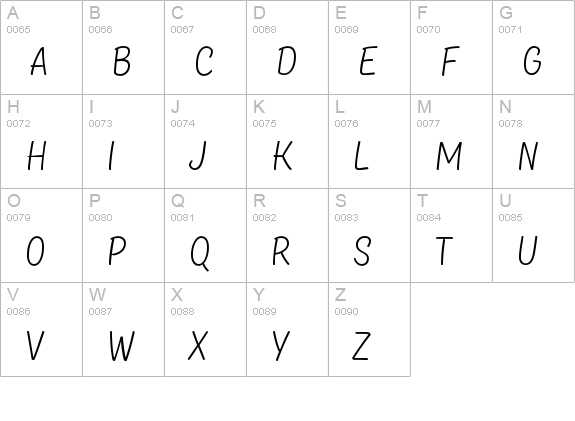
TT Masters Light Font Details
TT Masters Light is a refined, elegant variant in the TT typeface family \xE2\x80\x94 well suited to elegant body text, refined sub-headings, and luxury branding.
TT Masters Light font is a modern and elegant typeface that exudes sophistication and style. With its clean lines and subtle curves, this font is perfect for creating sleek and professional designs. The light weight of the font adds a touch of delicacy and refinement to any project. What's even better is that TT Masters Light font is available for free download at FontsMarket.com. Whether you're working on a branding project, a website design, or any other creative endeavor, this font is sure to elevate your work to the next level. Don't miss out on the opportunity to use this beautiful font in your designs. Download TT Masters Light today and let your creativity shine!